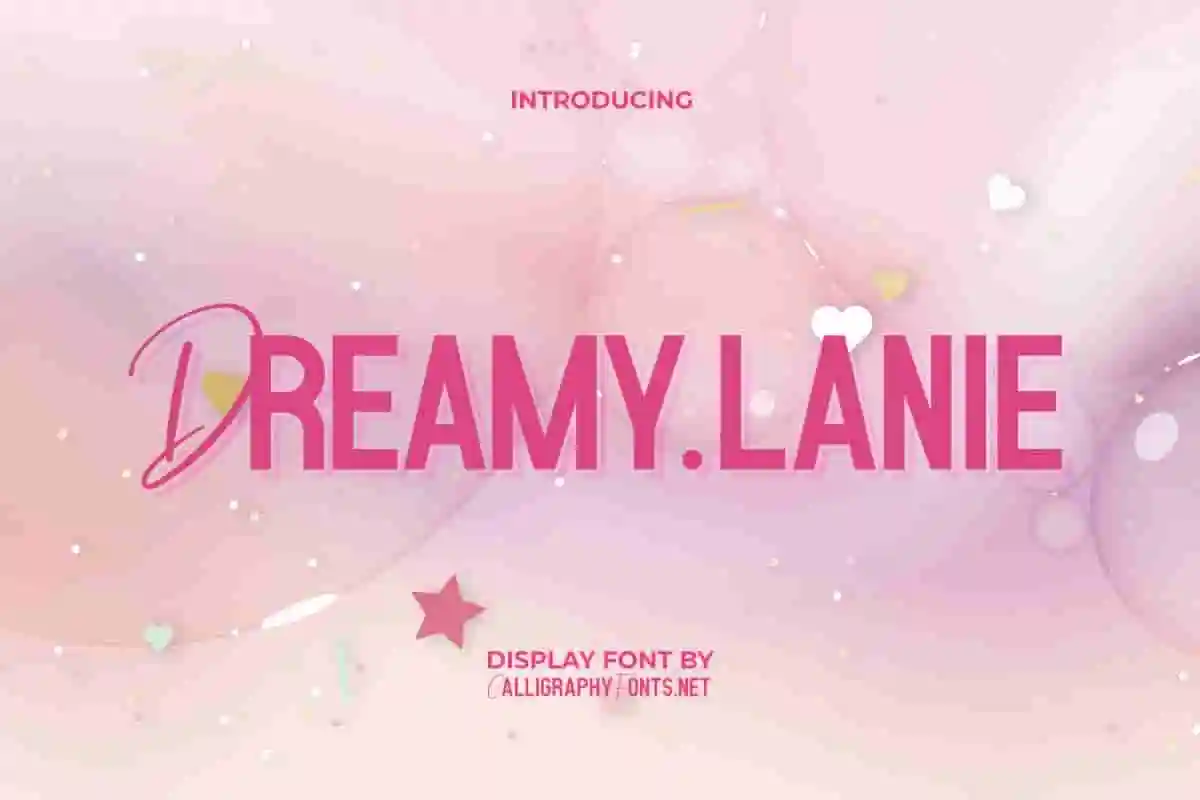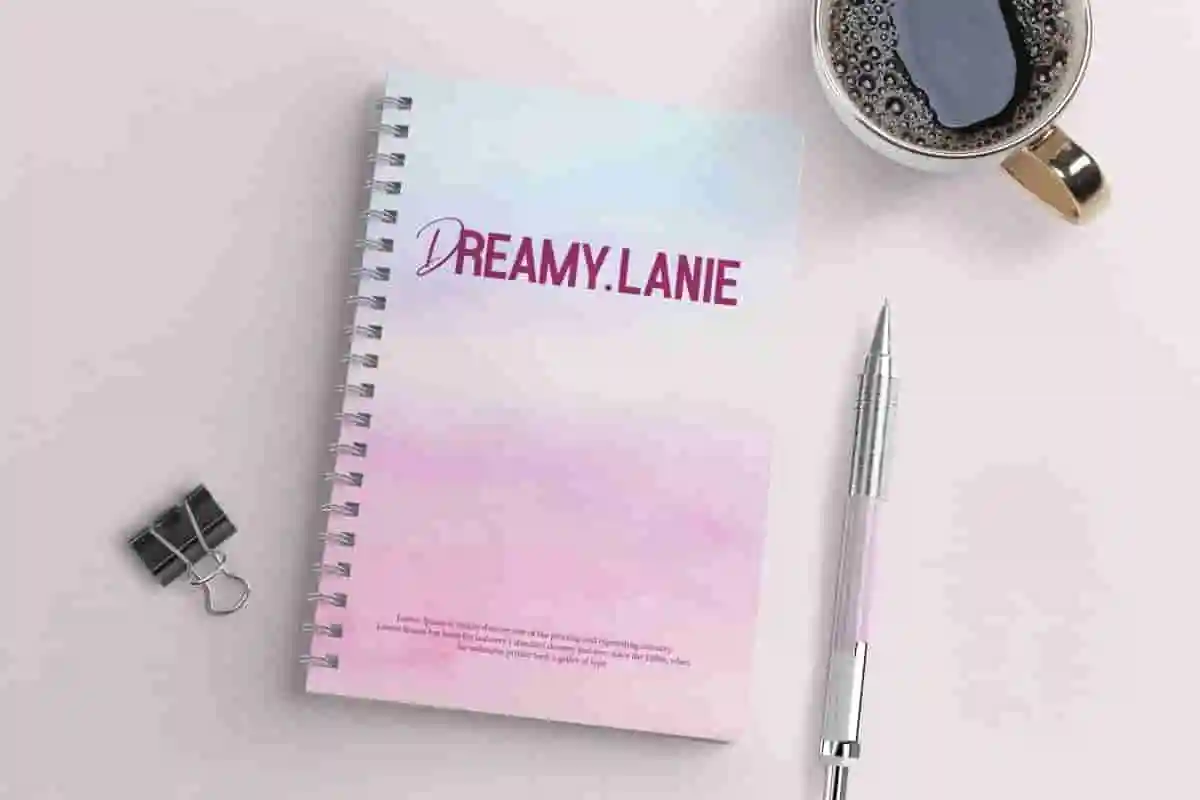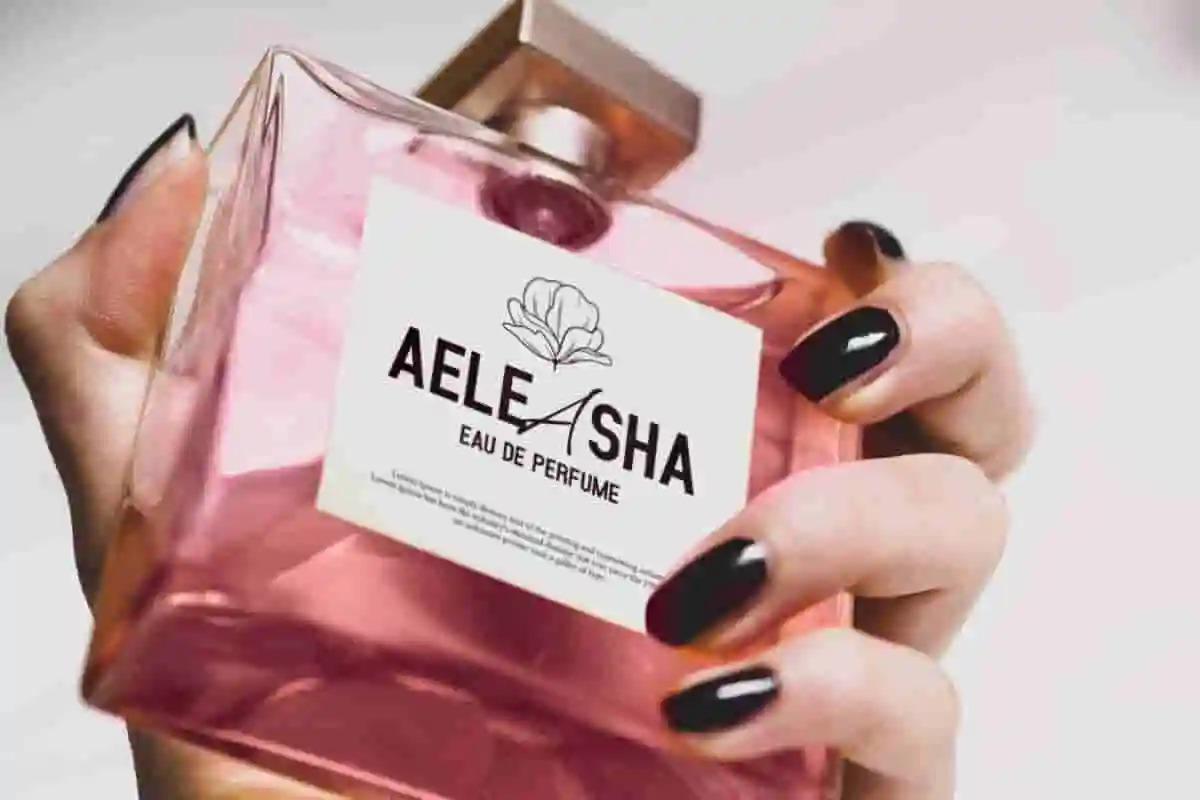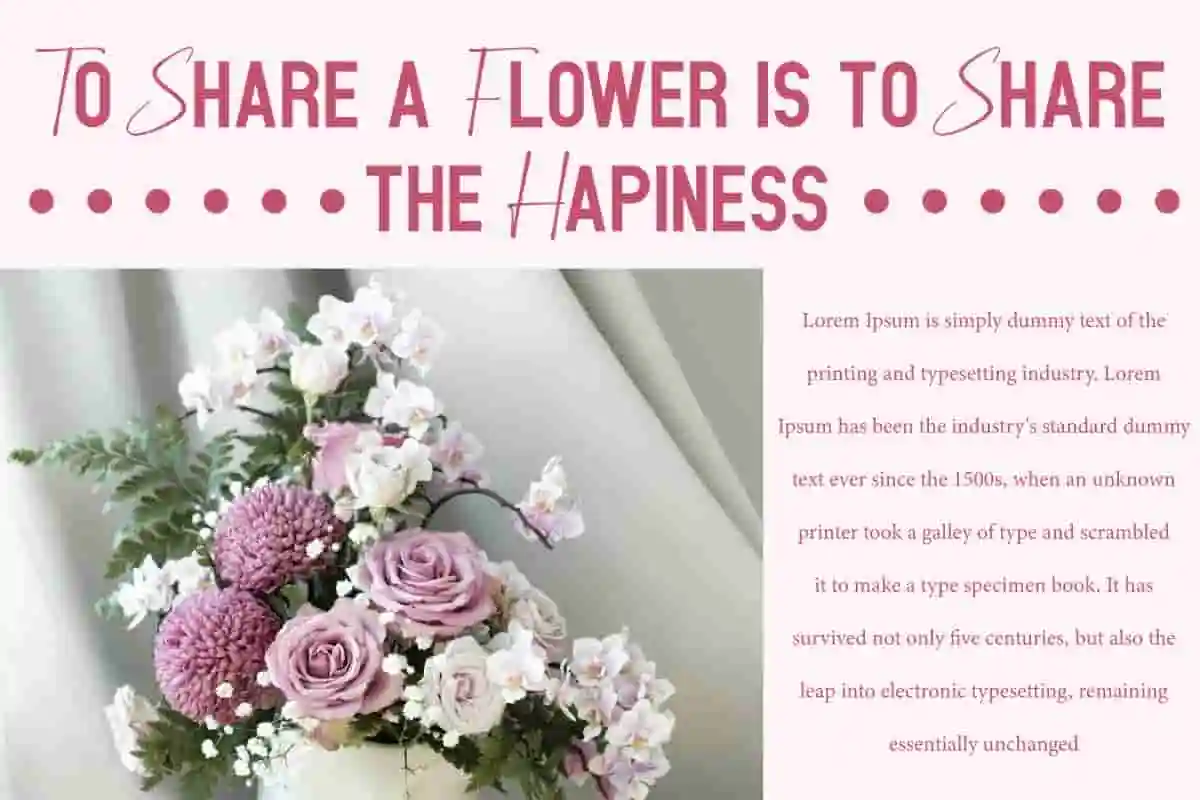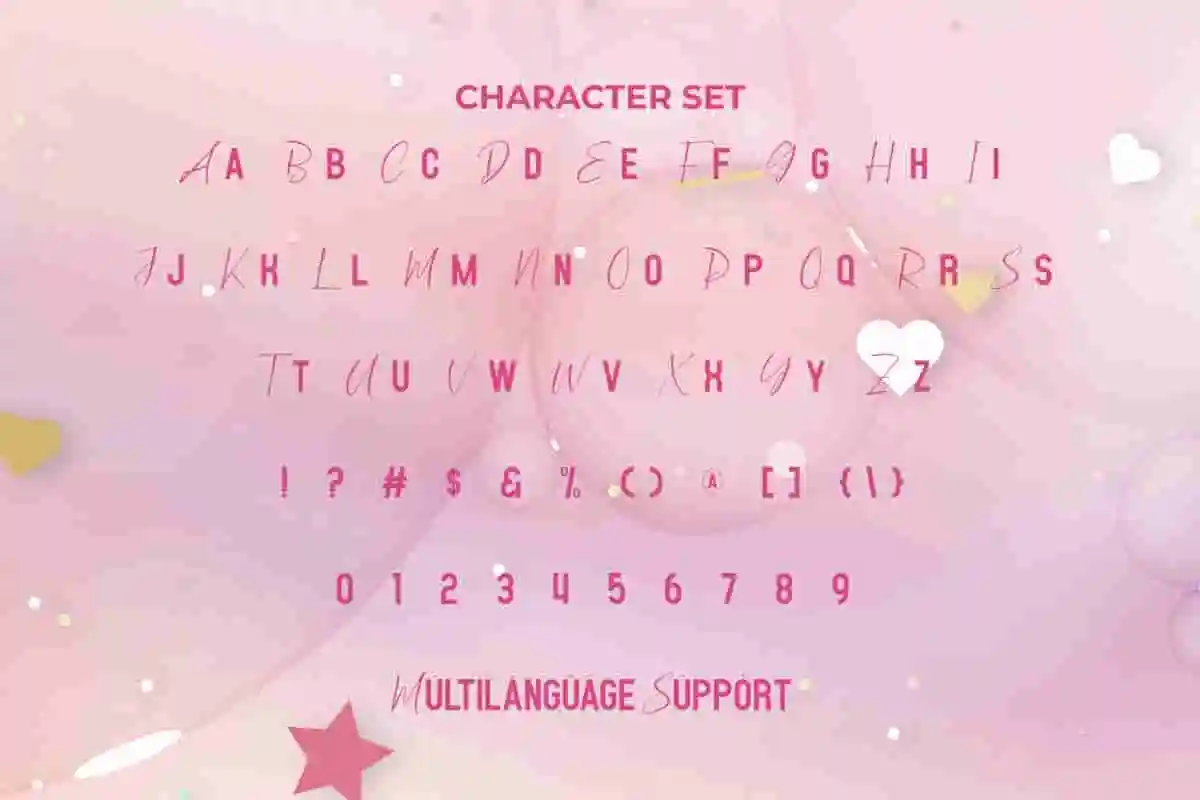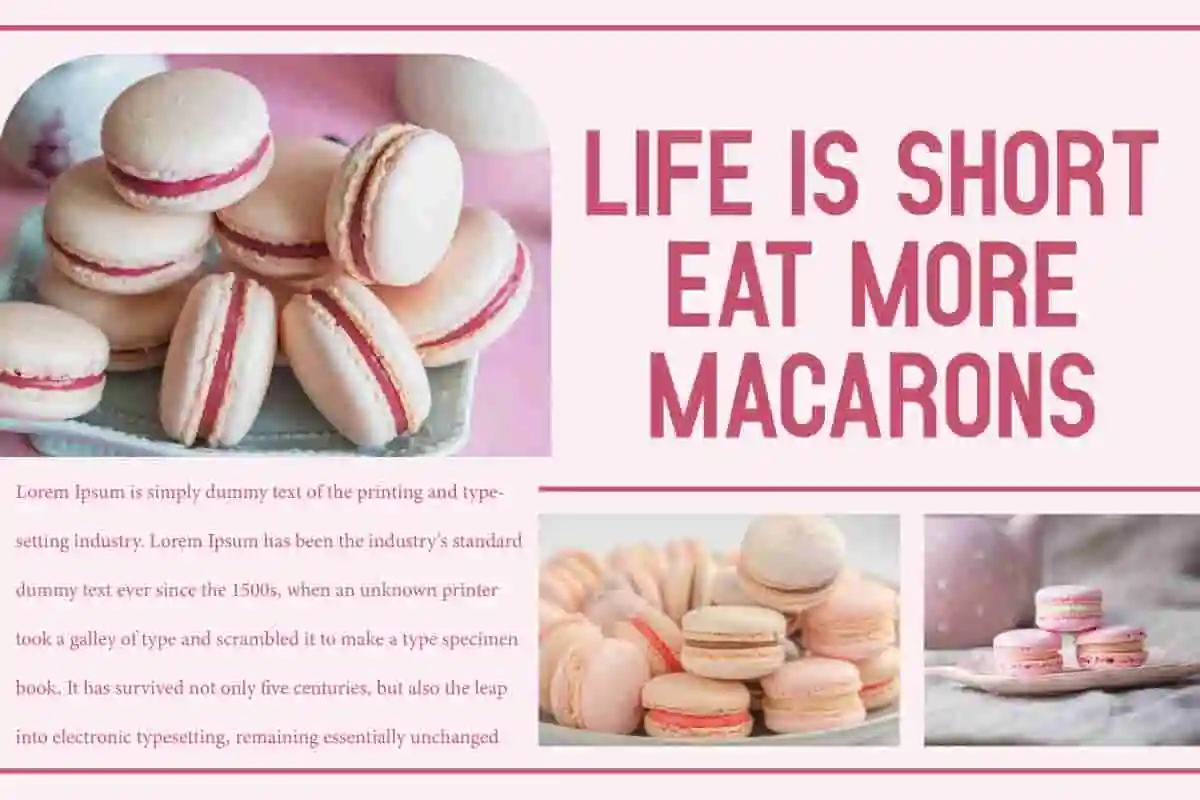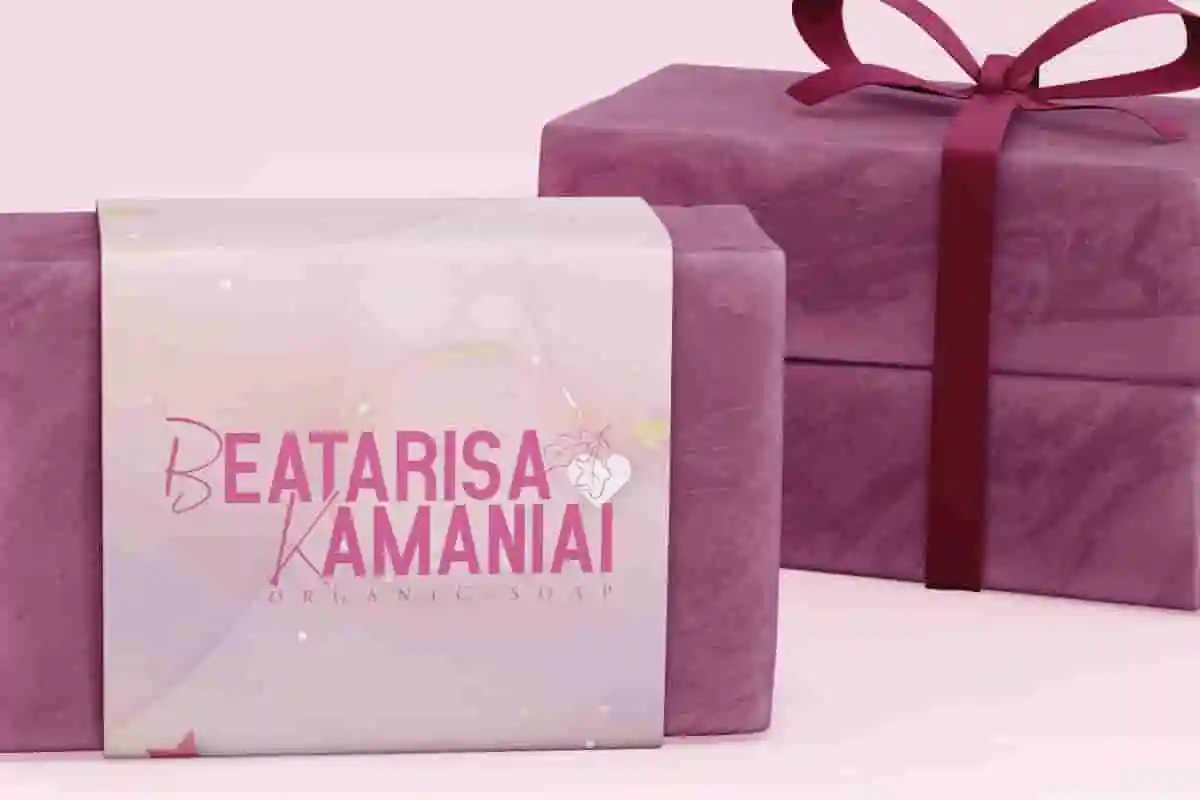
Dreamy Lanie Font
Dreamy Lanie Font is a beautiful font duo in one package that harmoniously blends sans serif and handwritten script styles that presents a balanced and refined look.
Dreamy Lanie Font is a sweet, cheerful and beautiful font that combines a charming handwriting script style with a bold capitalized sans serif. Minimalist style typography with timeless elegance that blends seamlessly. It will be perfect for advertising, blogs, book covers, branding, brochure, headers, headline, labels, logos, menu, quotes, stickers, titles, website and more.
Typography has the power to set the mood of any project, and with Dreamy Lanie Display Font, your designs will radiate charm, warmth, and creativity. This playful yet elegant display font is designed to capture attention while adding a touch of personality and sophistication.
With its whimsical curves, smooth letterforms, and stylish details, Dreamy Lanie Display Font is the perfect choice for projects that need a fresh and inviting feel. From branding and packaging to greeting cards, invitations, posters, and social media graphics, this font adapts beautifully to both personal and professional design needs.
Dreamy Lanie isn’t just a typeface—it’s a creative companion that brings your words to life. Its modern display style blends artistic expression with practical readability, making it suitable for fashion, lifestyle, handmade products, or event branding.
In a world where visuals matter more than ever, Dreamy Lanie Display Font helps your projects shine with a unique and unforgettable voice. Whether you’re crafting a romantic wedding invitation or designing bold promotional material, this font gives you the perfect balance of charm and elegance.
Dreamy Lanie Display Font is a brighter and more sophisticated font display with the beauty it creates. You can adjust its size as large or as small as needed, adjust it until it reaches the desired goal and make it your own! The font will be suitable for bakery, florist, graphic design, handicraft, perfume store, photography, restaurant, skincare, web design, and others.
Dreamy Lanie Display Font comes with a complete set of ALL CAPS for Uppercase and Lowercase, Number, a large range of Punctuation, Symbol. It is supported with multilingual characters and ready to use both on Windows machine or Mac with simple installations. It’s tested to work well in the Adobe Apps (Illustrator, Adobe InDesign, Adobe Photoshop) CorelDraw, and others. PUA Encode Characters means you can access all the characters easily – Fully accessible without additional design software.